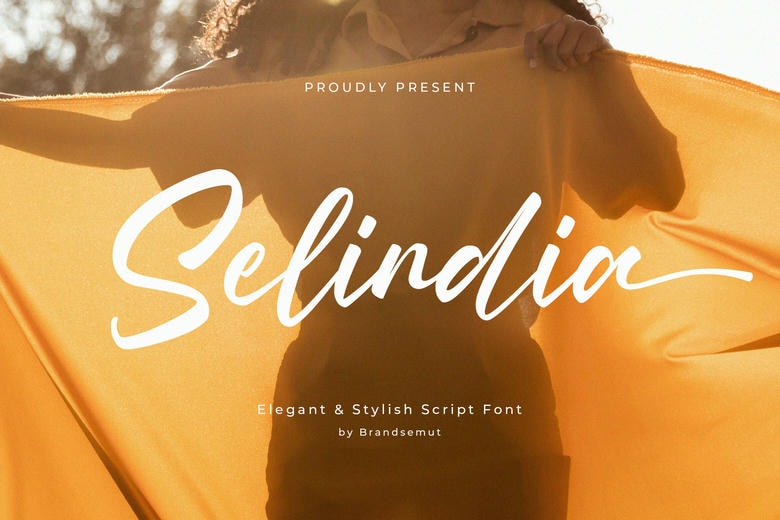
Selindia Font
Selindia is a sophisticated handwritten script font that exudes effortless elegance and modern charm. Its smooth, flowing strokes and fashion-forward appeal make it the perfect choice for high-end branding, runway-inspired editorials, signature logos, and chic social media graphics.
Selindia Handwritten Script Font